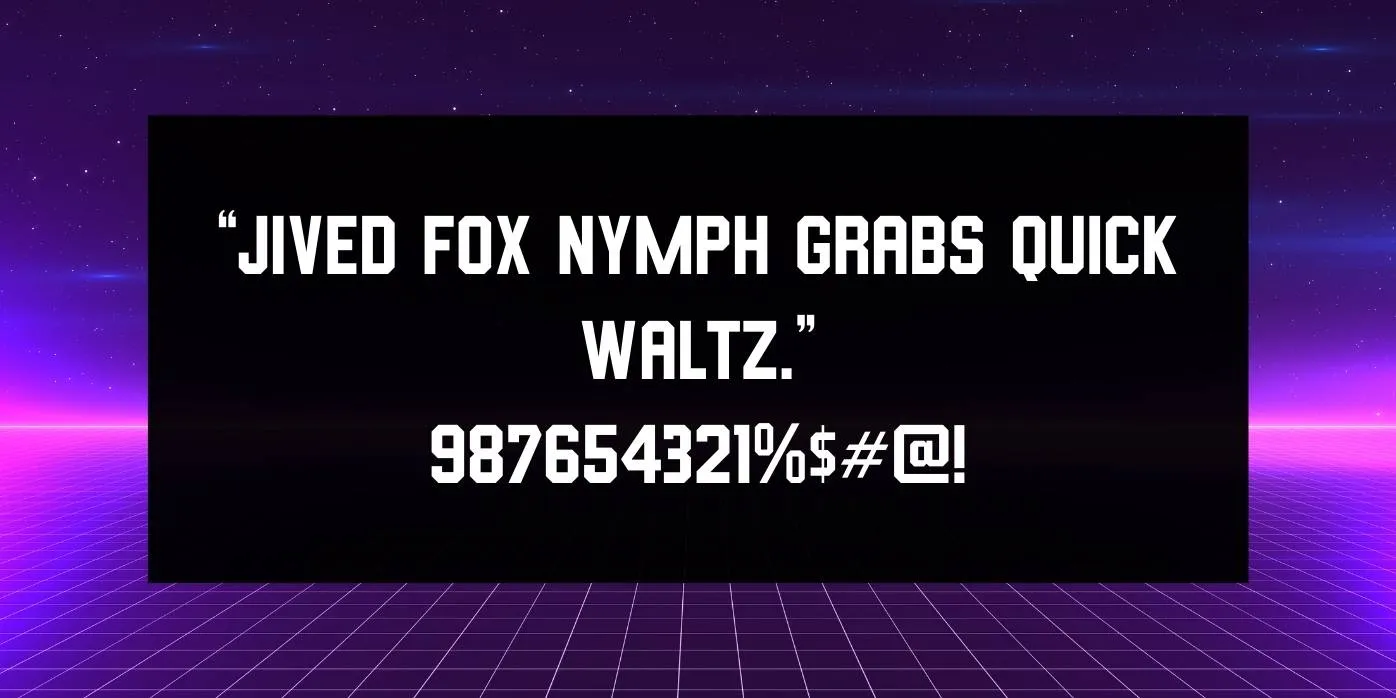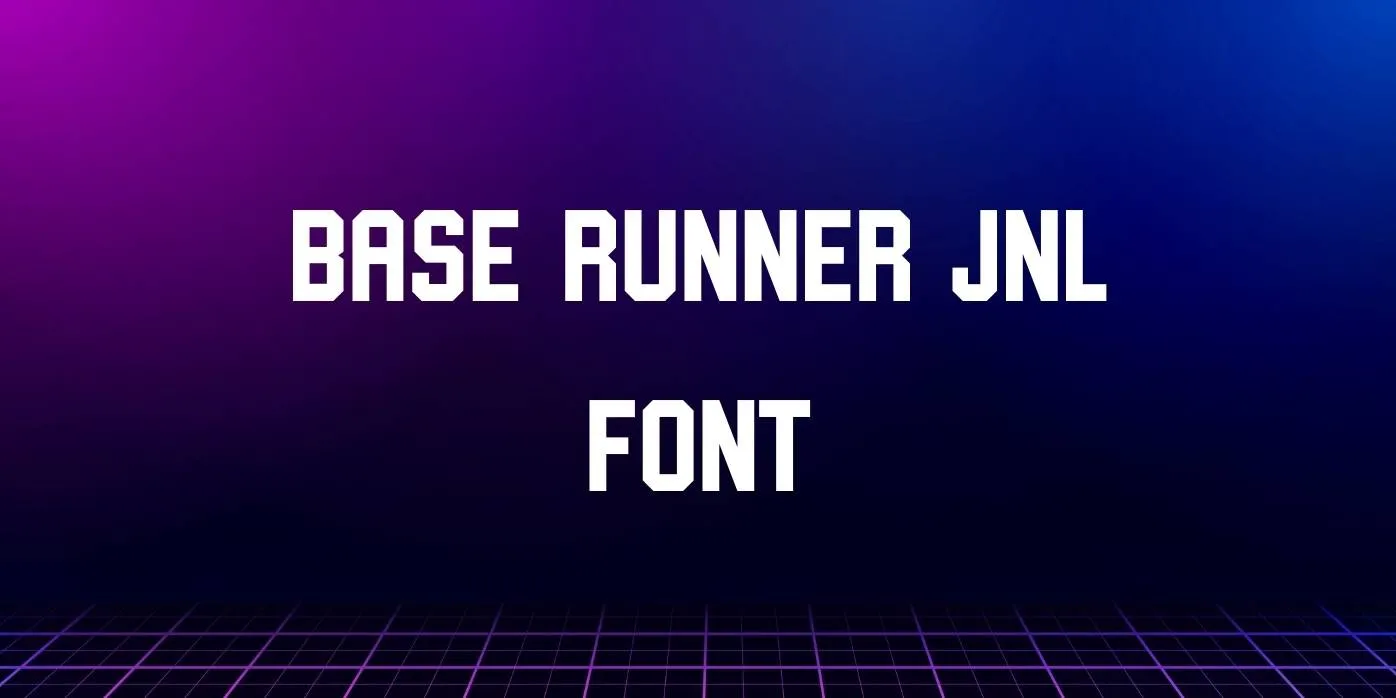
Base Runner JNL Font
Base Runner JNL is a basic sans-serif typeface that has been released in 2010. Developed by Jeff Levine, this font is designed to fulfill the unmet need for a basic, workhorse font that can be used almost anywhere. Its simple and clean design makes it perfect for both large- and small-scale projects. Base Runner JNL has a modern look that is perfect for corporate projects, websites, logos, and print projects.
It features a full alphabet, numbers, punctuation, and a wide selection of special characters. The font is available in five weights Thin, Light, Regular, Bold, and Black. And four styles Standard, Italic, Outline, and Drop Shadow. which adds to its versatility. Additionally, Base Runner JNL includes small caps and old-style figures, making it a great all-in-one font for any project.
The font also includes extensive language support, including Latin, Greek, Cyrillic, Hebrew, and Vietnamese, which makes it perfect for international projects. What’s more, each character has been carefully crafted to ensure maximum legibility no matter the size. This, combined with benton sans font and its simple and modern look, makes it easy to read.